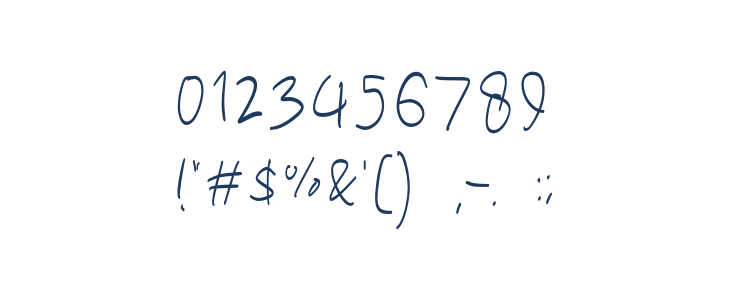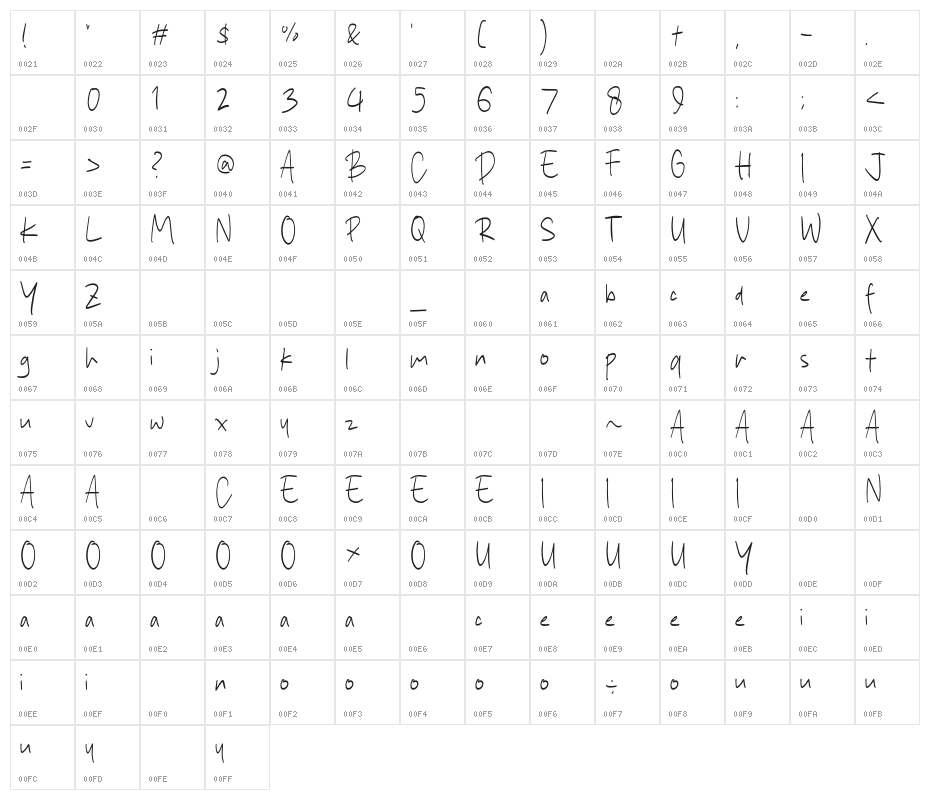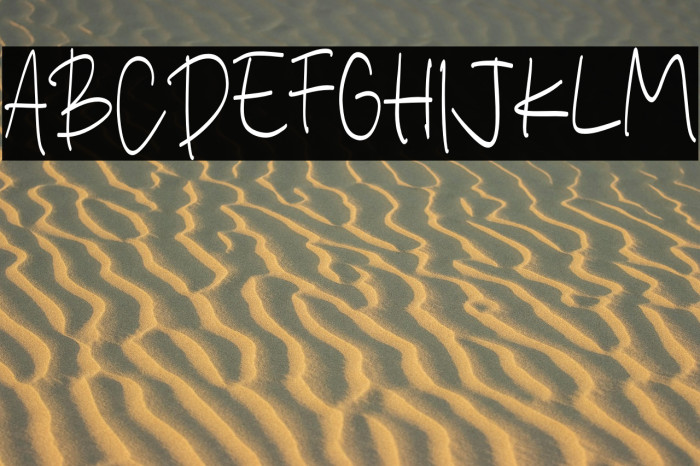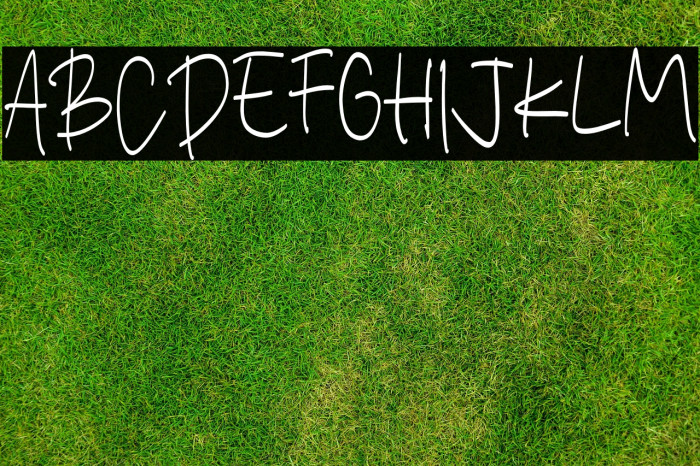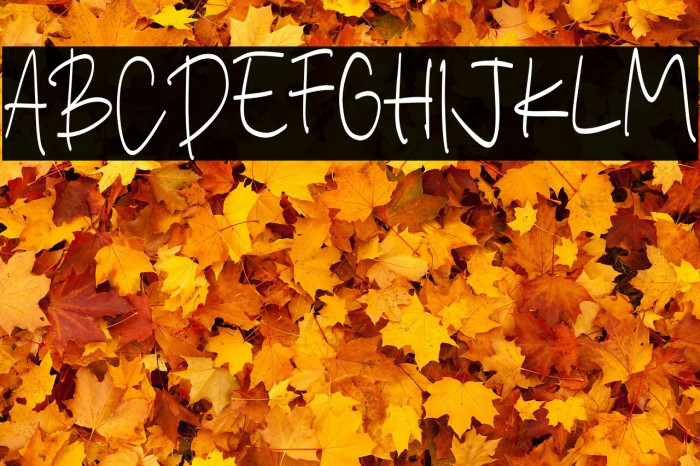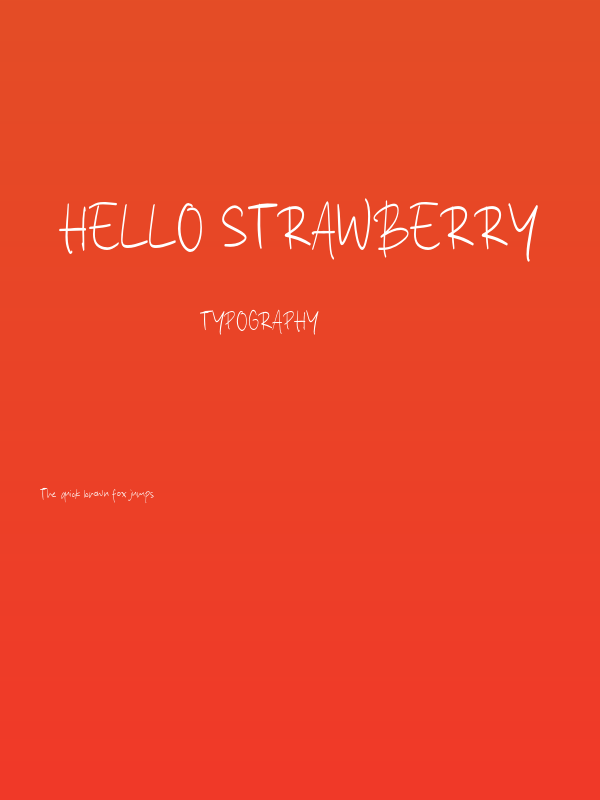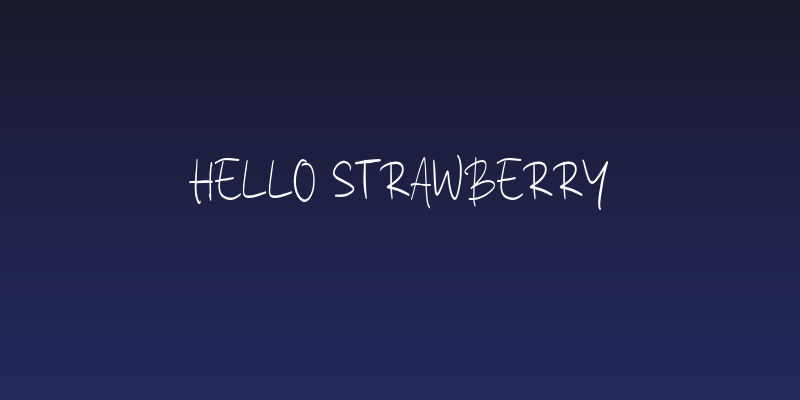
Hello Strawberry Font
Hello Strawberry Description
This font exudes a casual and playful handwritten style, characterized by its irregular strokes and informal appearance. The letters are slightly slanted, giving it a dynamic and lively feel. The uppercase and lowercase letters maintain a consistent style, with a slight variation in size and shape that adds to its charm. The numbers and special characters follow the same playful aesthetic, making it suitable for creative and informal projects. The overall look is approachable and friendly, perfect for conveying a sense of warmth and personality.
| Proposed Projects | Ideal for greeting cards, personal branding, children's books, and creative social media graphics. |